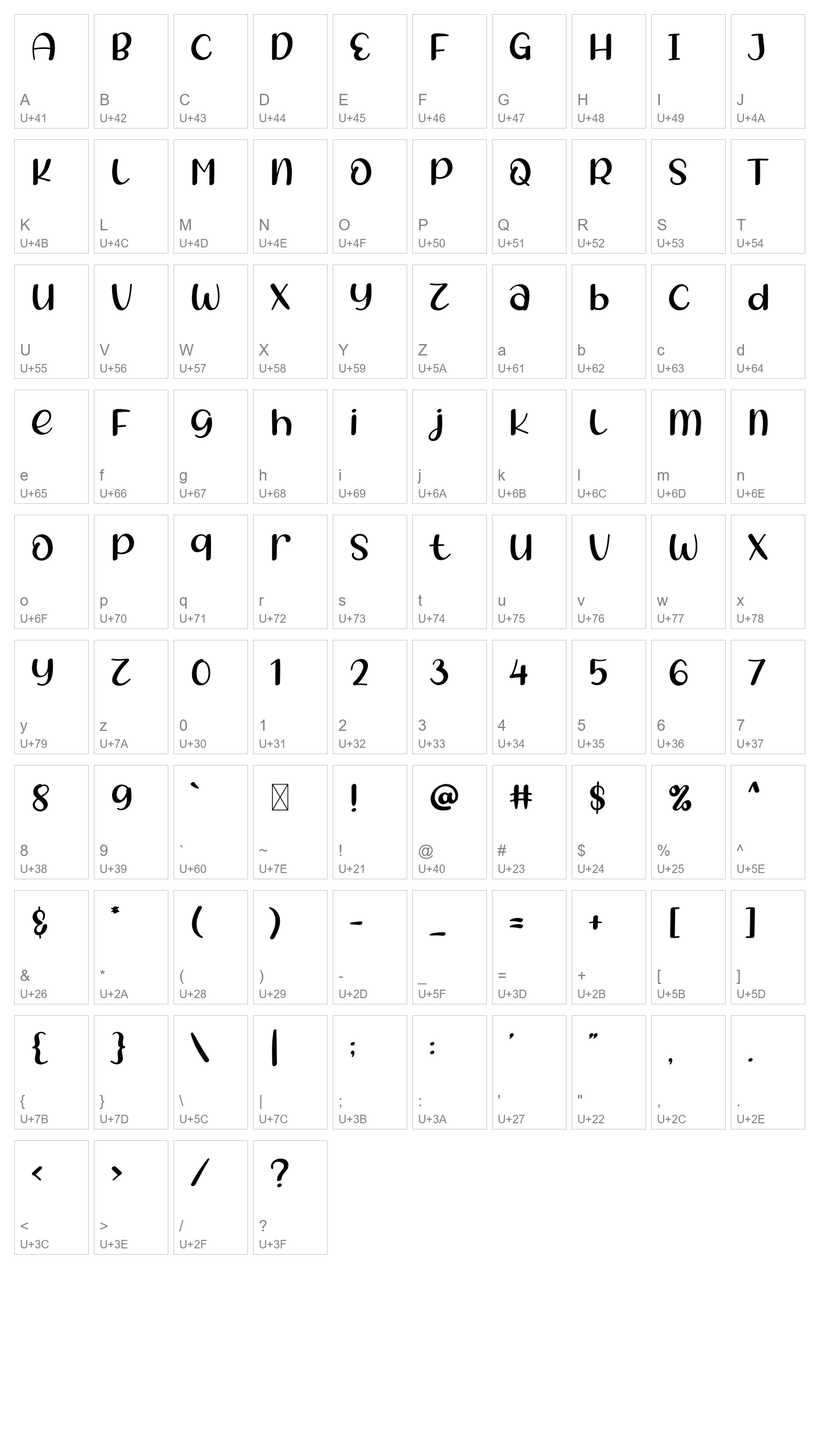
Salmonpie
Salmonpie is a quirky and chic lettered display font. It can easily be matched to an incredibly large set of projects, so add it to your creative ideas and notice how it makes them stand out!